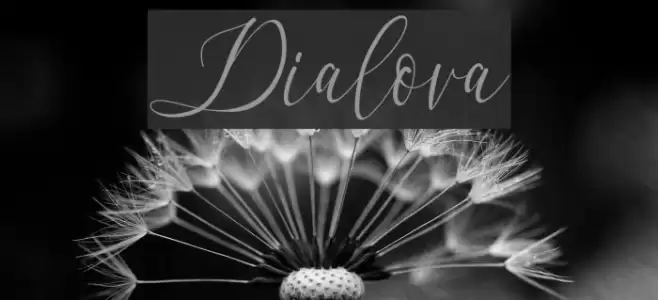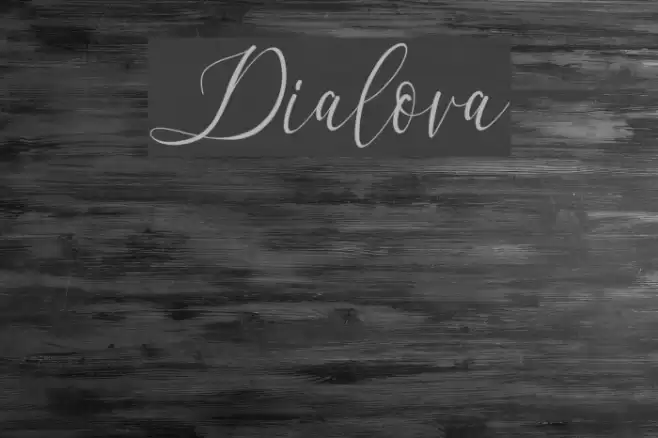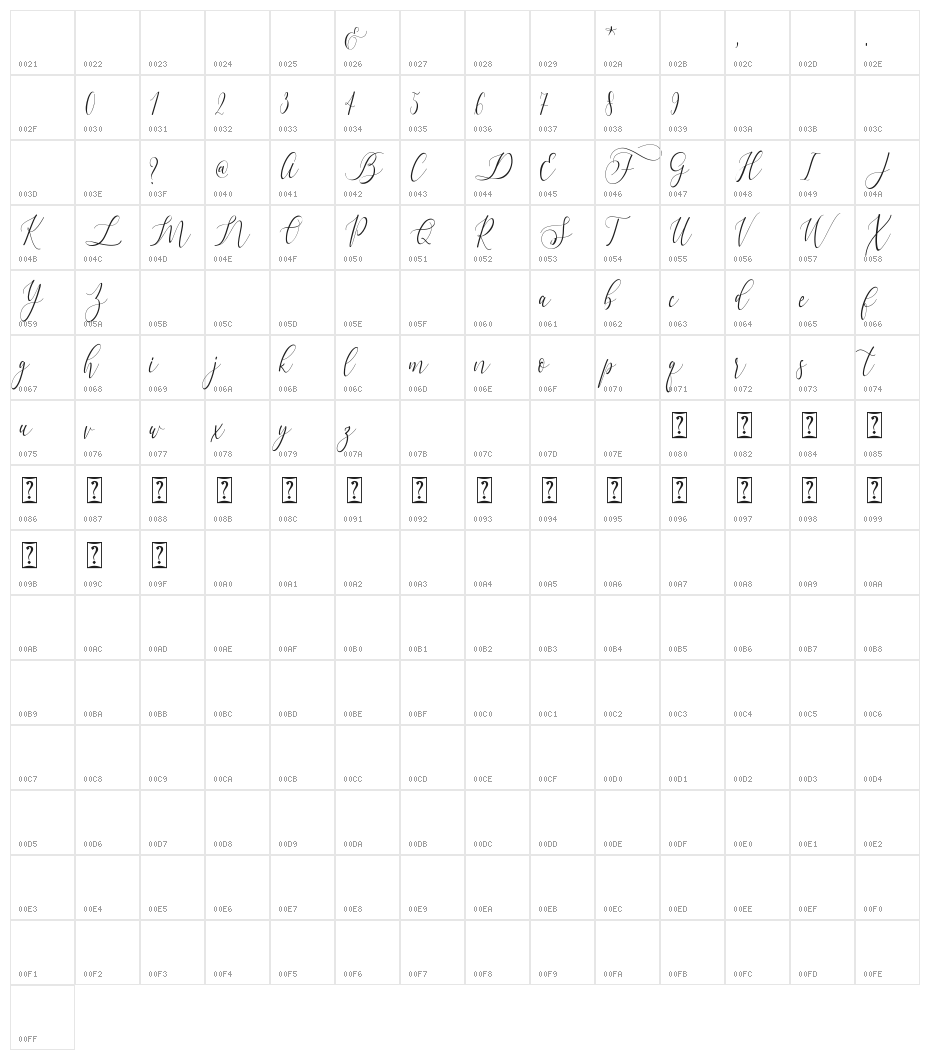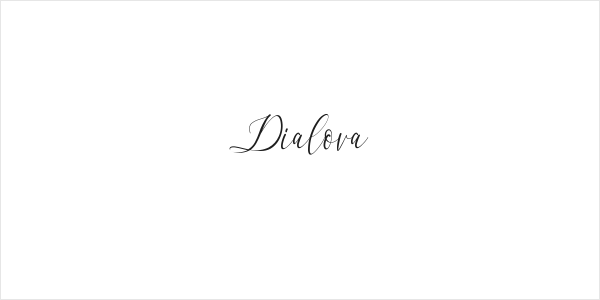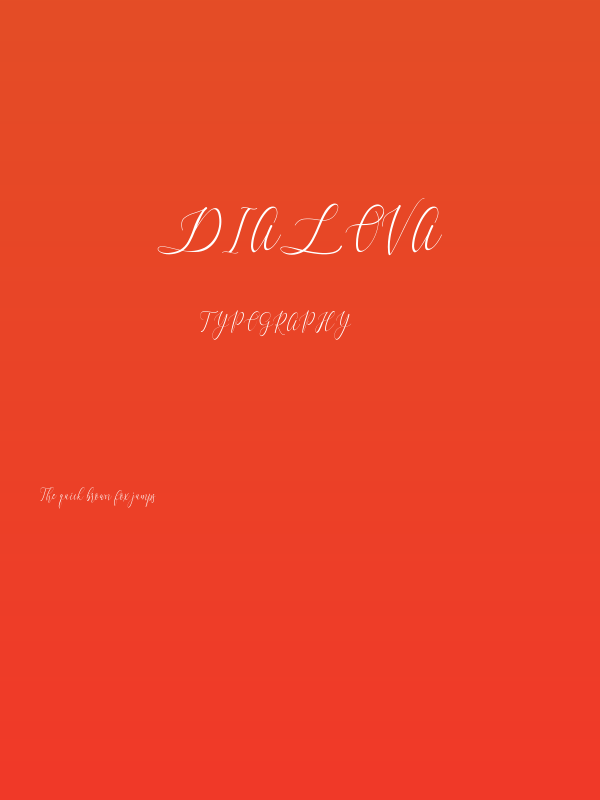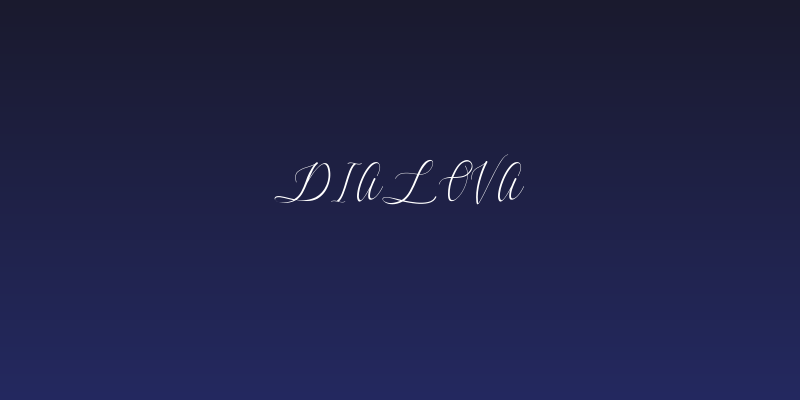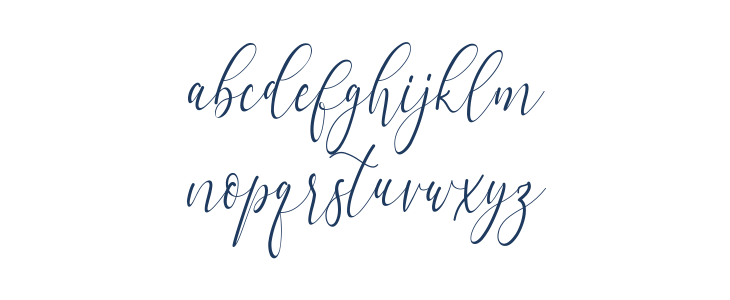
Dialova Font
Dialova Description
This elegant script font features a flowing, cursive style with graceful, sweeping curves and delicate lines. The uppercase letters are characterized by their tall, slender forms and intricate loops, while the lowercase letters maintain a consistent fluidity and charm. The numerals are designed with a similar elegance, making them suitable for sophisticated applications. The special characters, including the ampersand and asterisk, are crafted with artistic flair, enhancing the font's decorative appeal. Overall, this font exudes a sense of refinement and sophistication, ideal for projects that require a touch of elegance.
A graceful and elegant script font with flowing, cursive lines from Uncategorized fonts.
- Proposed Projects: Wedding invitations, luxury branding, elegant stationery, and high-end product packaging.
- Overall Style: Elegant, Decorative
- Use Case: Logos, Invitations, Decorative text